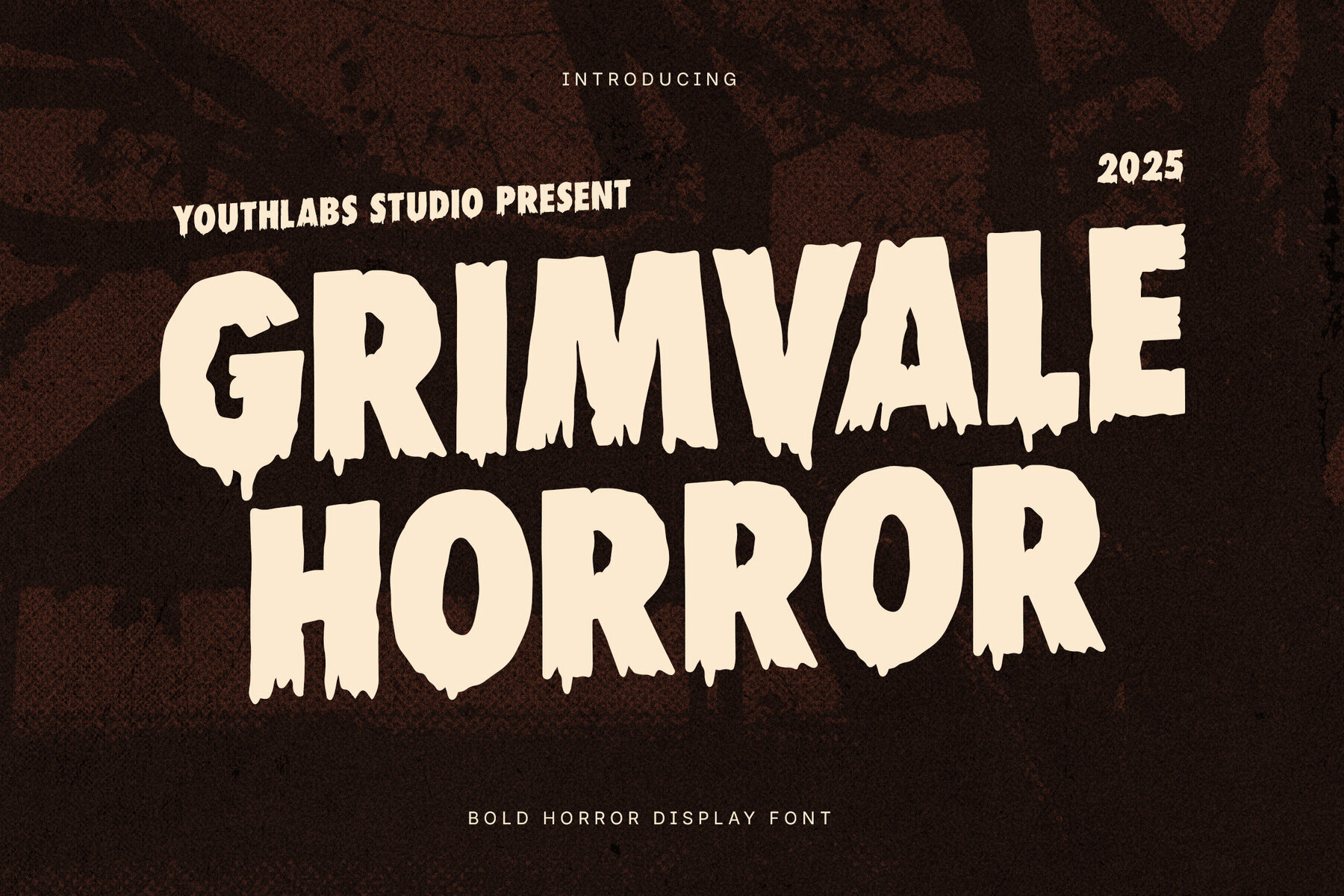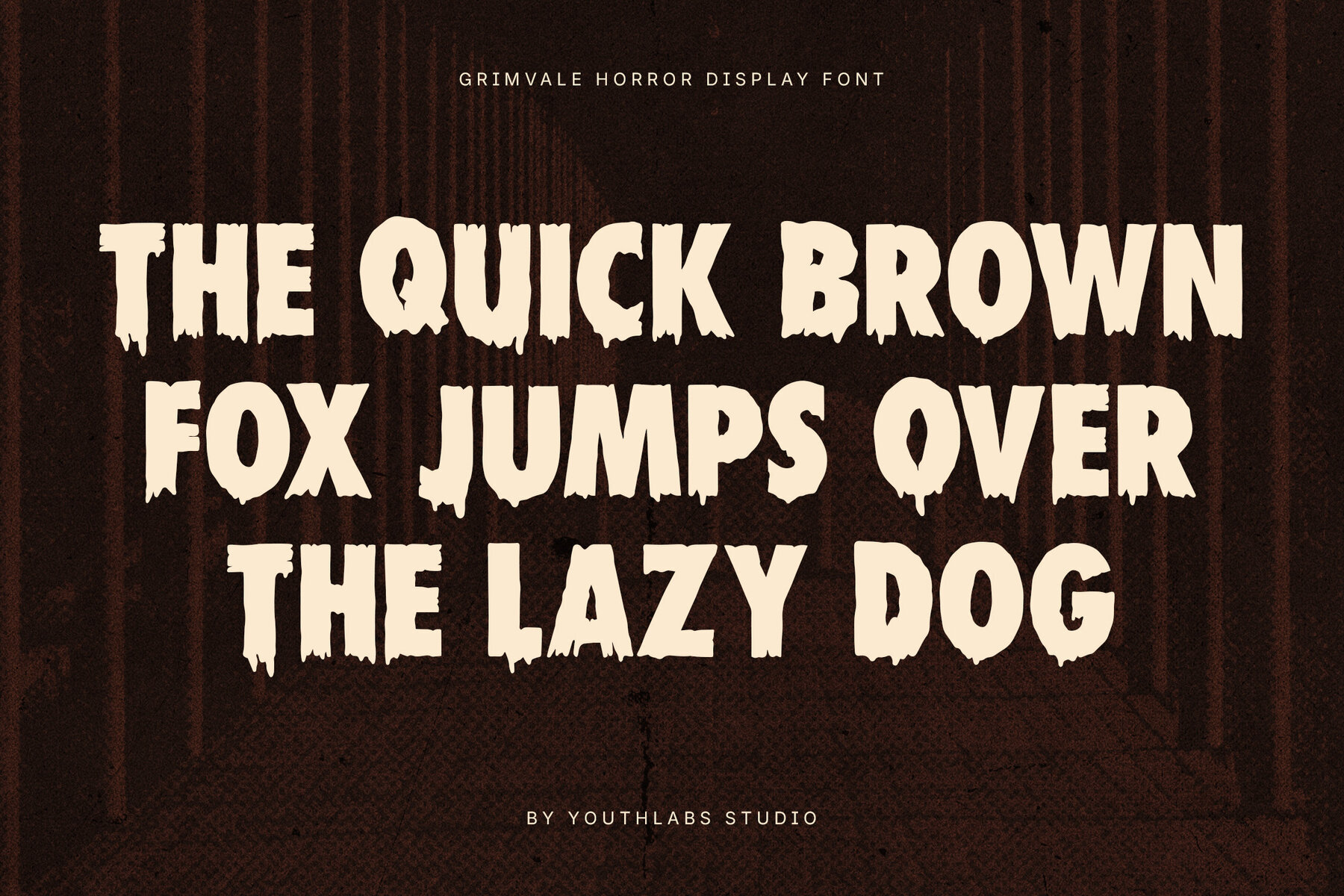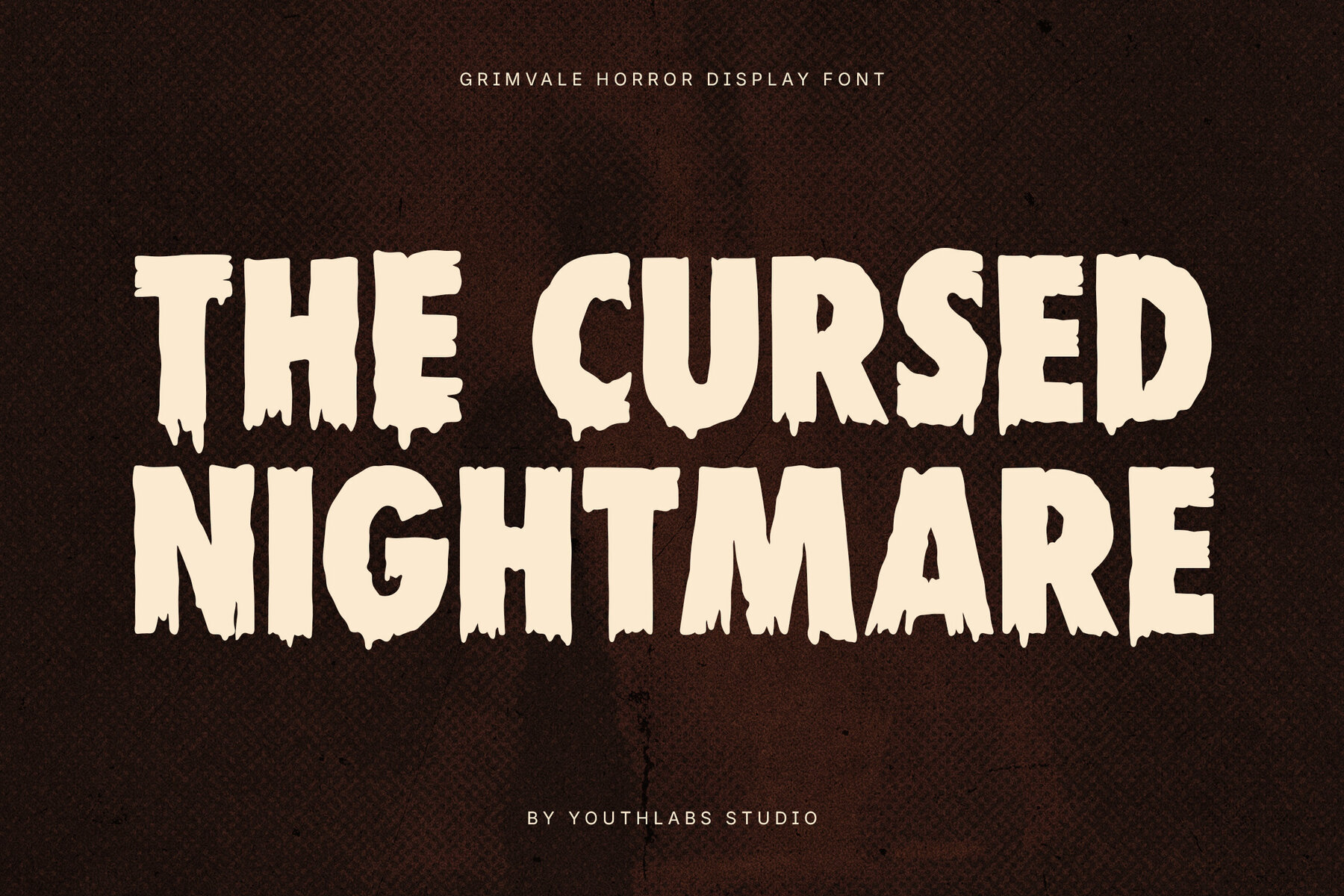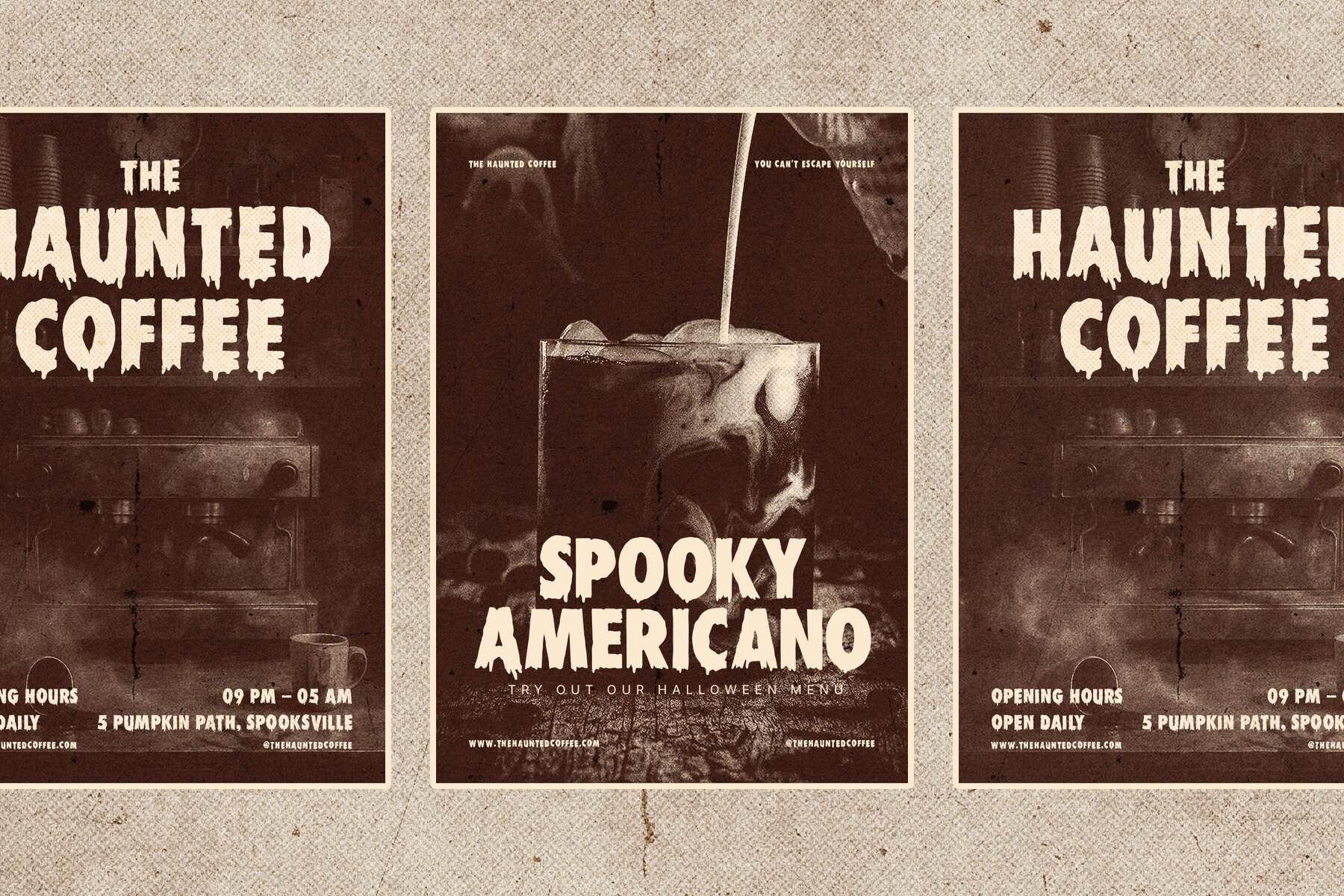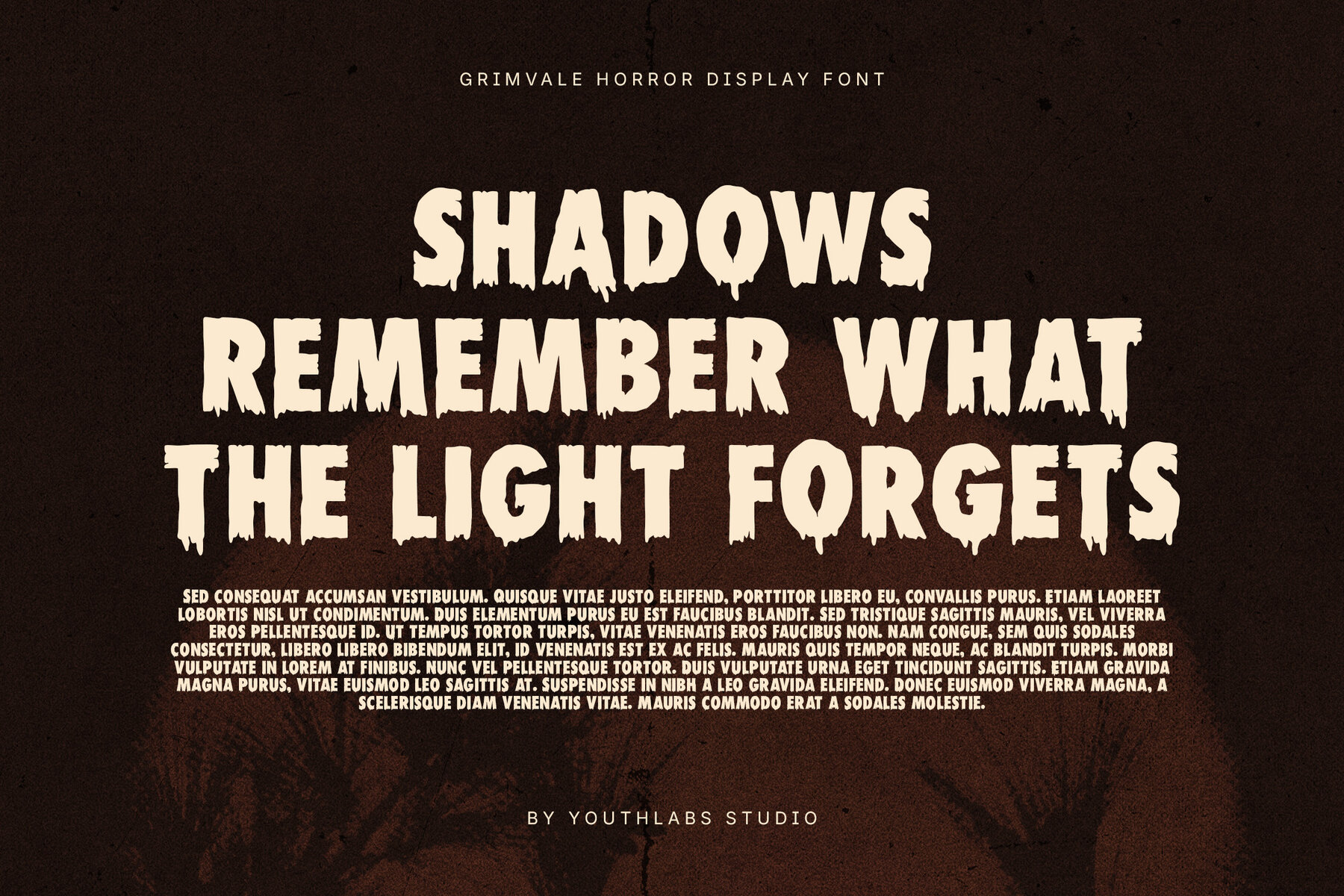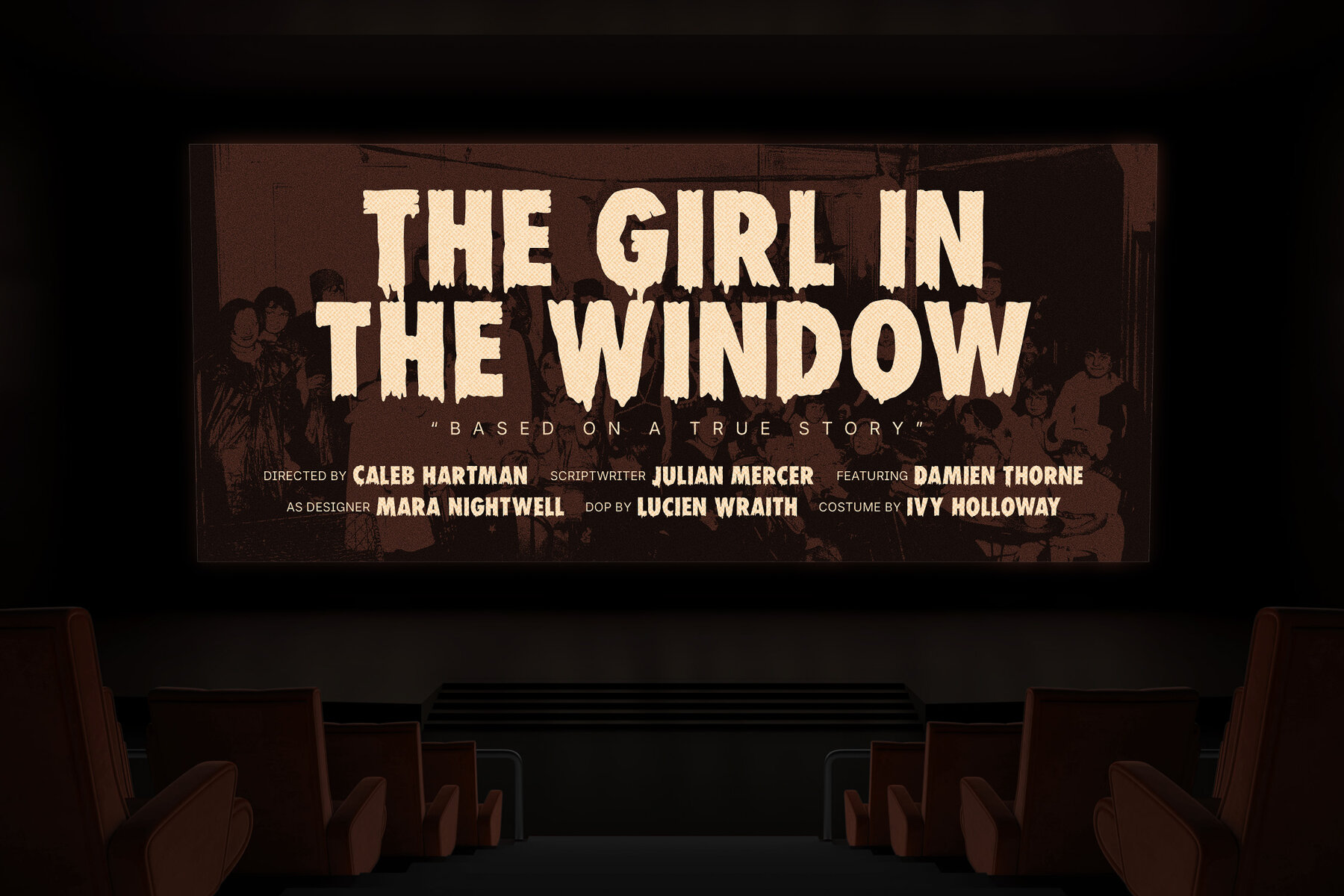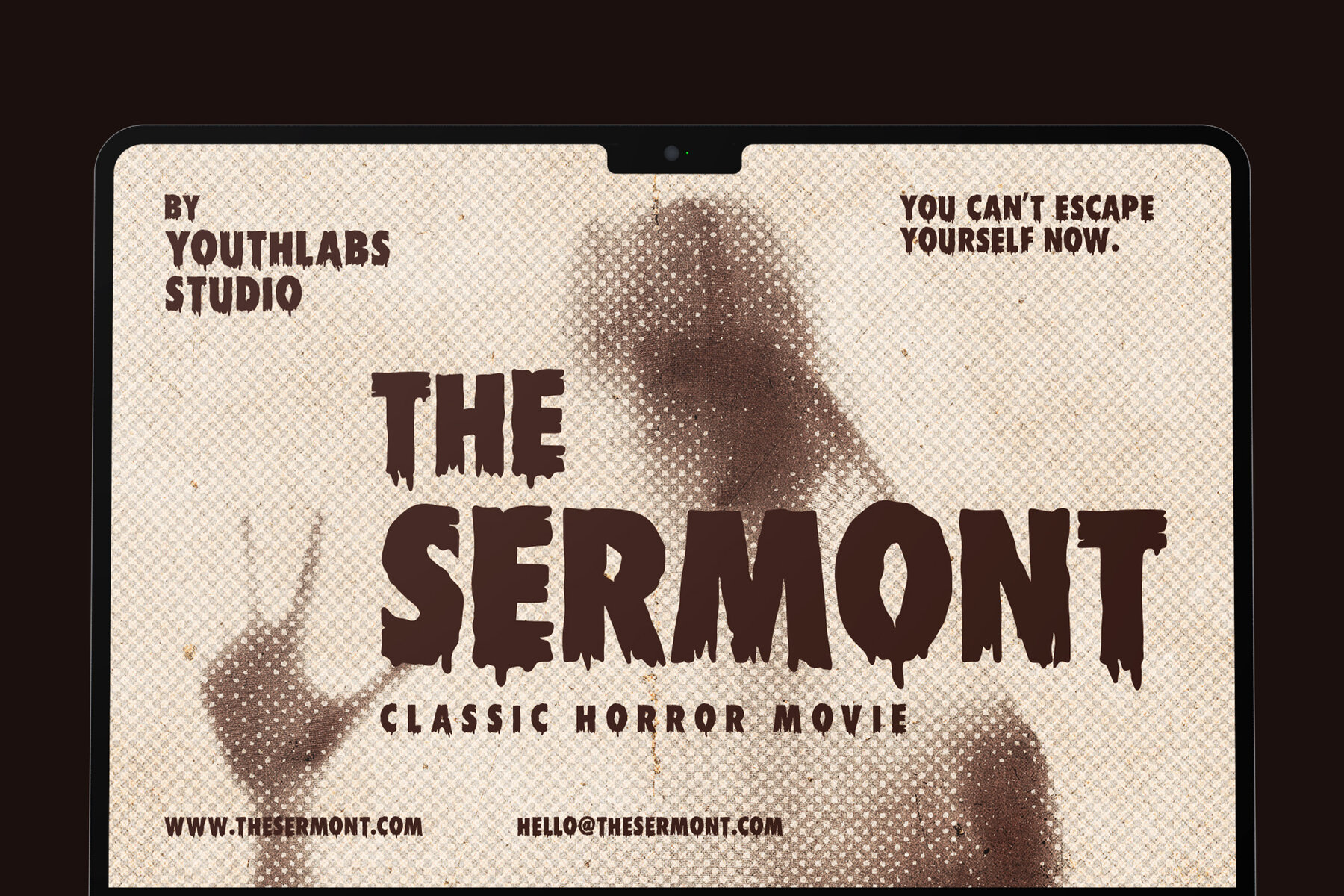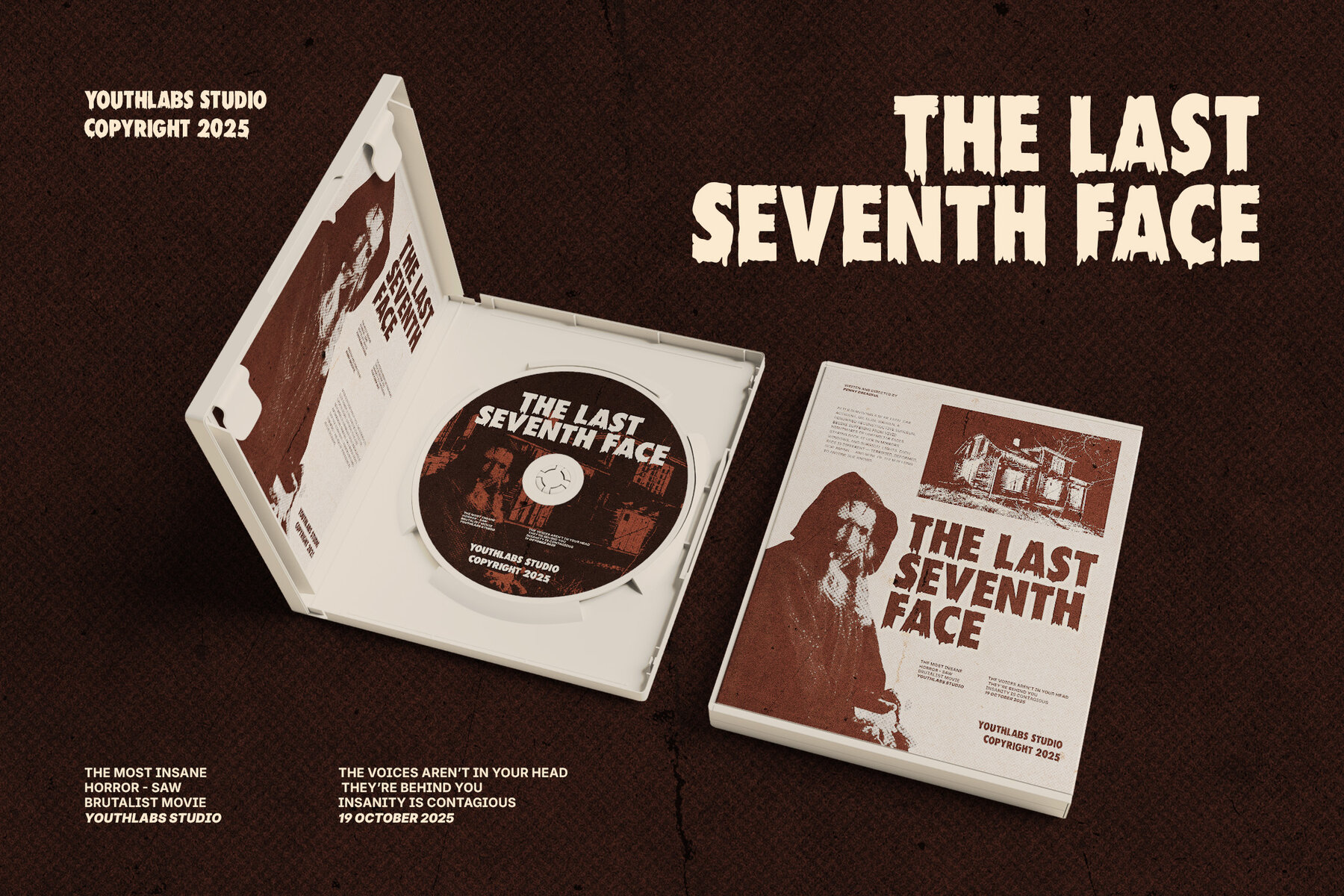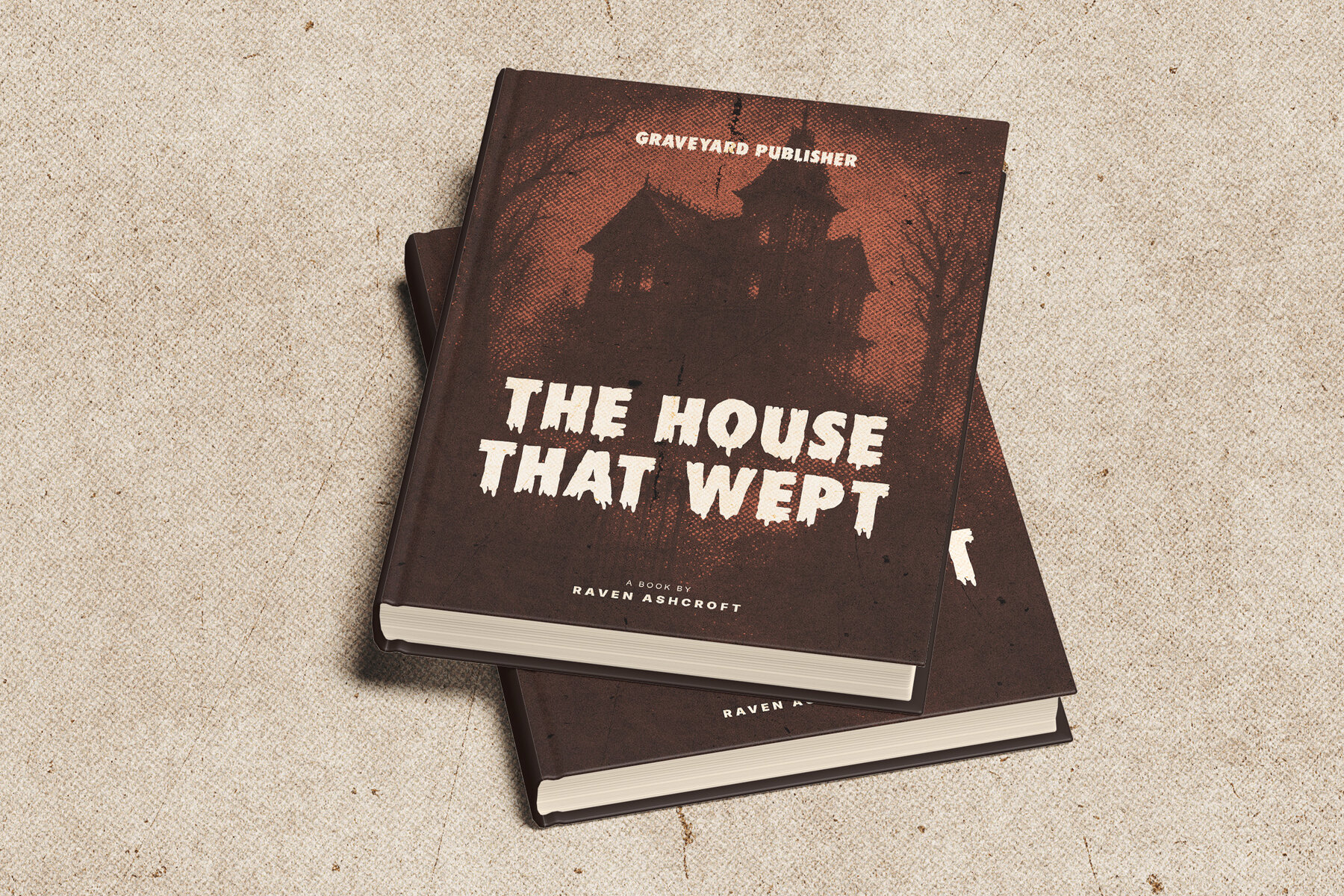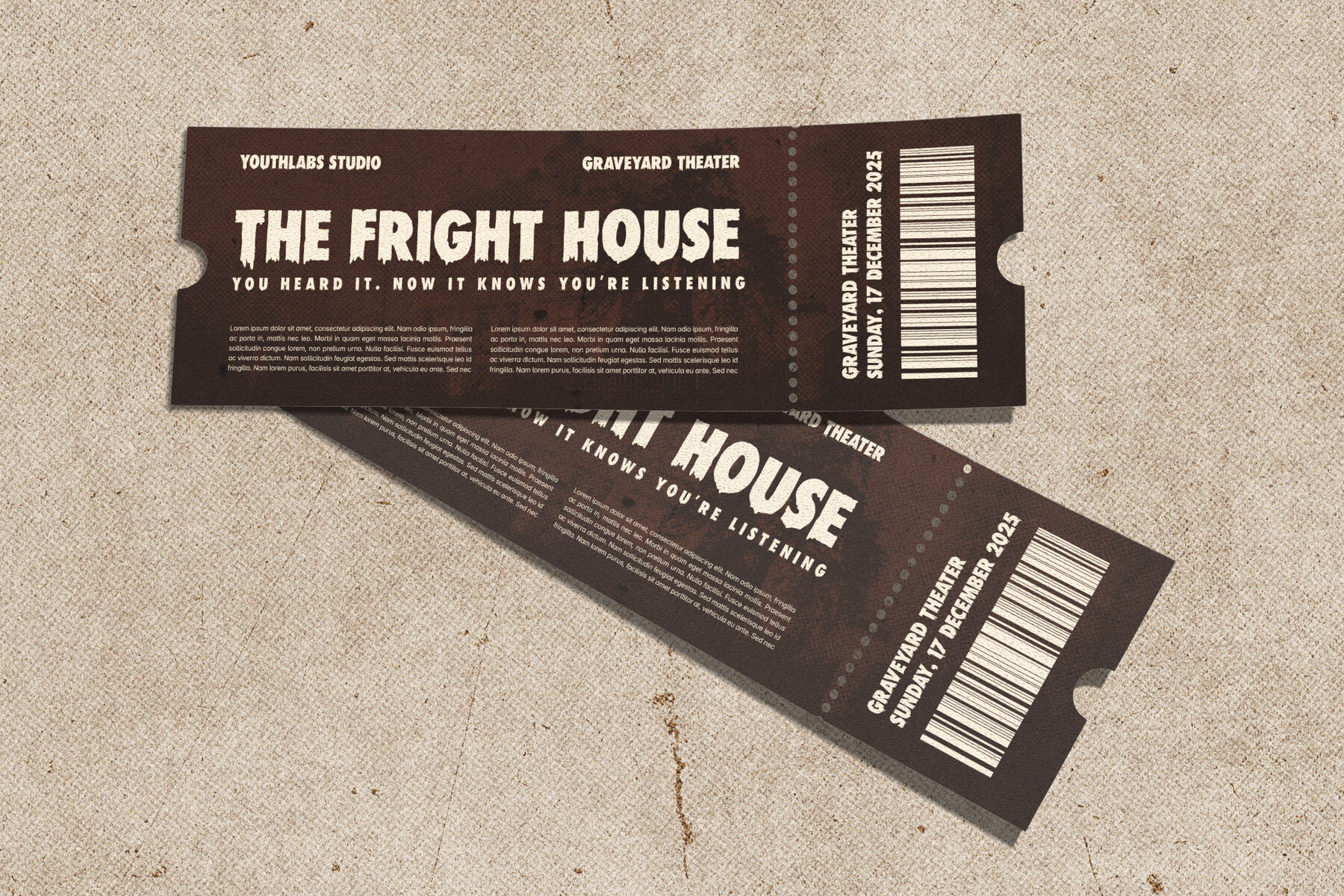
Grimvale Font
Grimvale: Bold Horror Display Typeface
Grimvale is a bold and sinister display font, drawing inspiration from classic monster films and vintage horror posters. Its jagged edges and flowing details evoke a chilling atmosphere, making it the ideal choice for any horror-themed project.
Whether crafting movie titles, Halloween designs, posters, book covers, merchandise, or gaming graphics, Grimvale adds a distinctively dark and dramatic flair. This font captures the essence of fear and retro fright, offering a compelling touch to spooky creative endeavors.